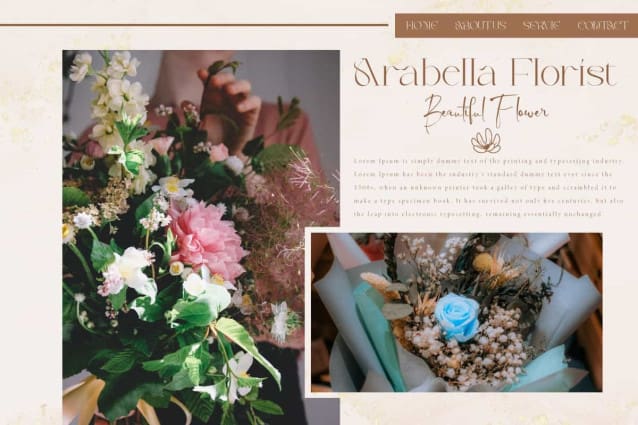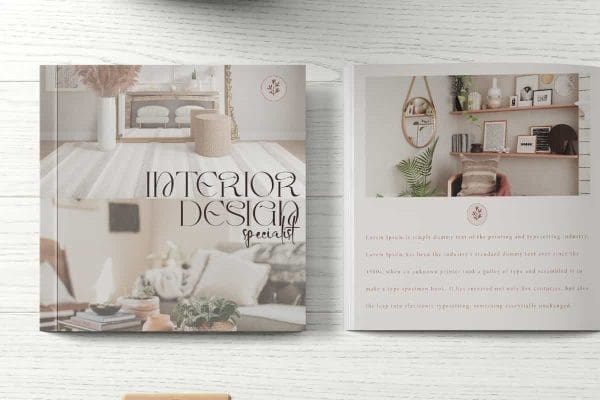
Roise Glamour Font
Roise Glamour Font is a wavy sleek serif display font, created nicely by RaisProject. This font has a strong character that radiates dazzling beauty. It will be good for any designs, such as brand image, cover, custom design, flyer, invitation, label, magazine, marketing material, menu, poster, product packaging, quotes, signage, stationery, website page, and more!
Roise Glamour Font including a complete set of Uppercase and Lowercase basic characters, Numerals, and large range of Punctuation. This font also suitable for various industries, such as advertising, beauty product, cafeteria, fashion, florist, home furniture, marketing, photography, printing, publishing, spa and salon, wedding organizer, etc.